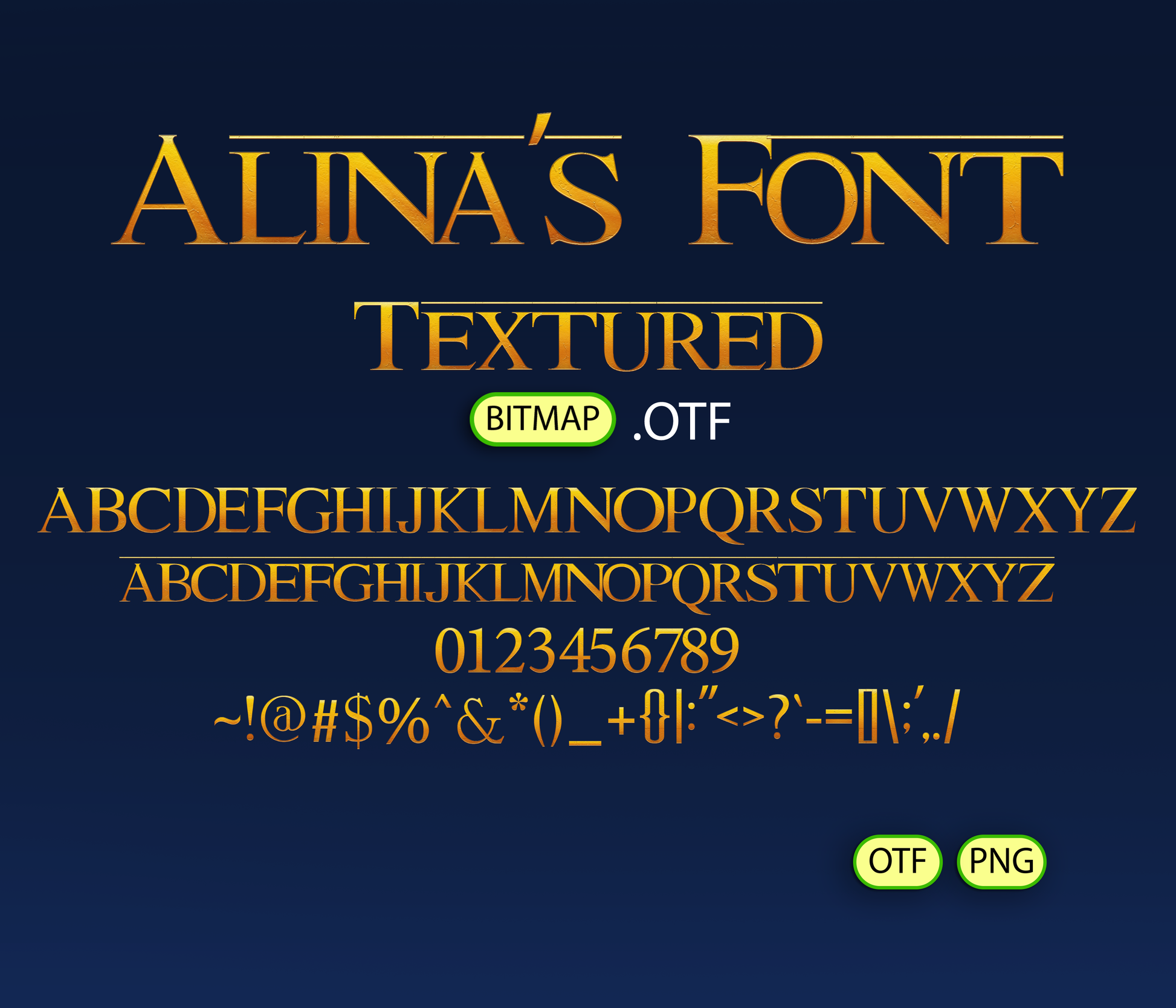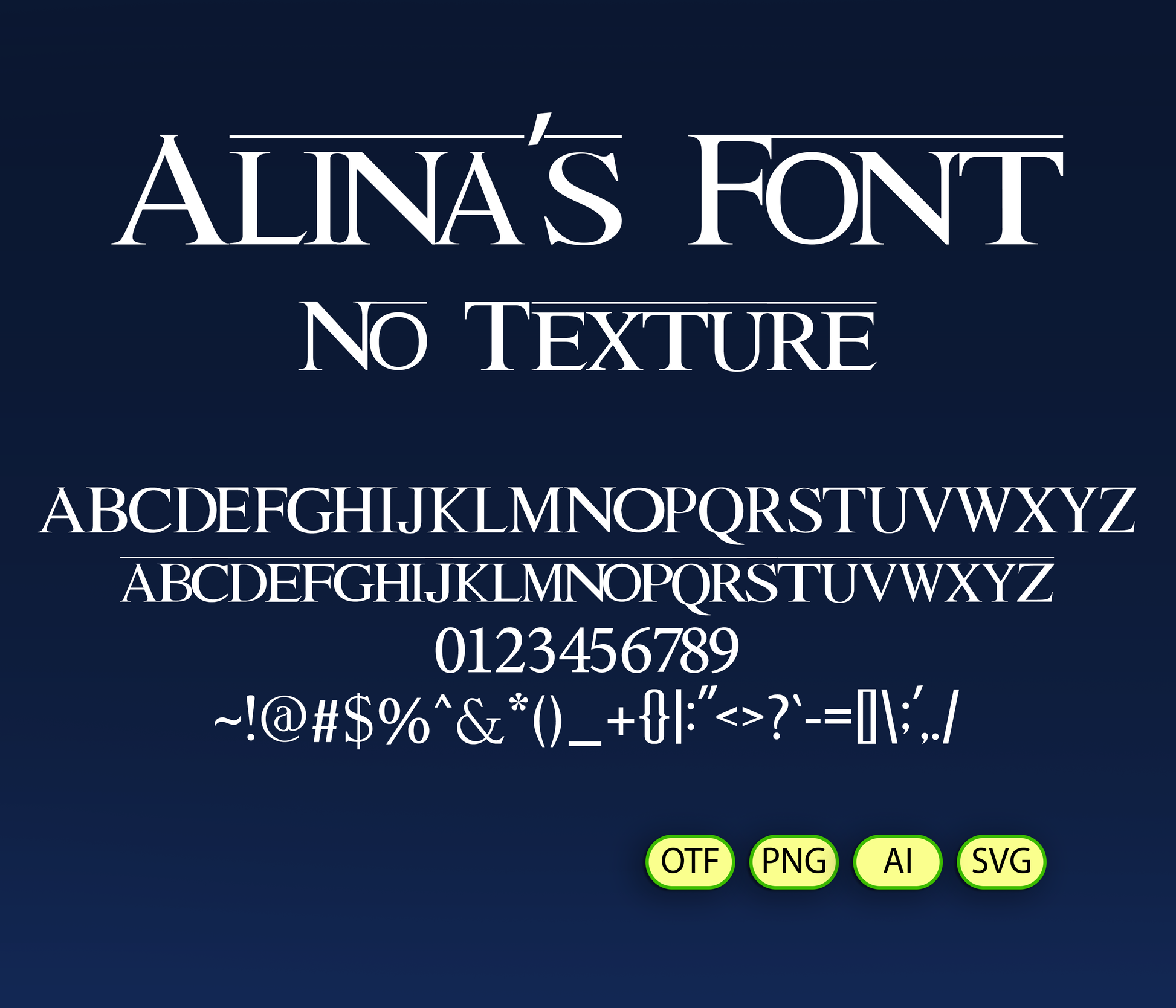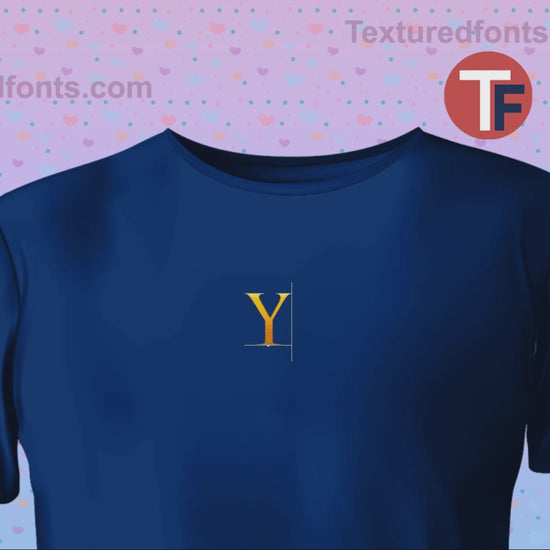
Savannah King Font Textured
Embrace the Majesty with the Savannah King Font
Step into the awe-inspiring world of the African savannah with our Savannah King-inspired font. Designed to capture the timeless beauty and grandeur of a beloved animated film, this font is perfect for fans, event planners, and designers who want to evoke the regal and vibrant spirit of the savannah. Whether you're creating event invitations, designing themed merchandise, or crafting digital content, our Savannah King font ensures your projects resonate with the elegance and adventure of the Pride Lands.
Our Savannah King-inspired font features bold, elegant lines with subtle, intricate detailing that reflect the majestic and natural elements of the film. This versatile font is ideal for a wide range of applications:
1. Event Invitations: Perfect for creating stunning invites for themed parties, weddings, or special celebrations.
2. Merchandise Design: Ideal for designing t-shirts, posters, and accessories that capture the essence of the savannah.
3. Digital Media: Enhance websites, blogs, and social media content with powerful headers and captivating graphics.
4. Educational Materials: Use in presentations, worksheets, and educational content focused on wildlife, leadership, or storytelling.
5. Personal Projects: Add a touch of royal elegance to scrapbooking, DIY crafts, or home decor inspired by the Pride Lands.
To ensure broad usability and flexibility, our Savannah King-inspired font includes both textured and non-textured variants. The non-textured version is particularly beneficial, ensuring compatibility with all types of software, including Canva. This feature allows users of all skill levels to seamlessly incorporate the font into their designs, enhancing accessibility and convenience across various digital and print platforms.
Our Savannah King font not only pays homage to the iconic film but also empowers you to infuse your designs with the grandeur and nobility of the Pride Lands. Whether you’re crafting promotional materials, designing unique merchandise, or adding a touch of royal elegance to personal projects, this font allows you to communicate with the powerful and majestic spirit of the savannah. Ready to elevate your creations to new heights? This font is your key to unlocking the regal beauty of the African savannah.